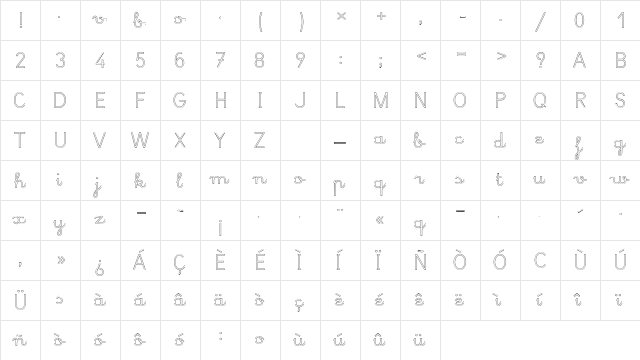
Escolar5 Calada5
Design Context for Escolar5 Typeface
Escolar5 offers clean, dependable letterforms without strong stylistic allegiance, making it a practical choice for designers who need flexibility.